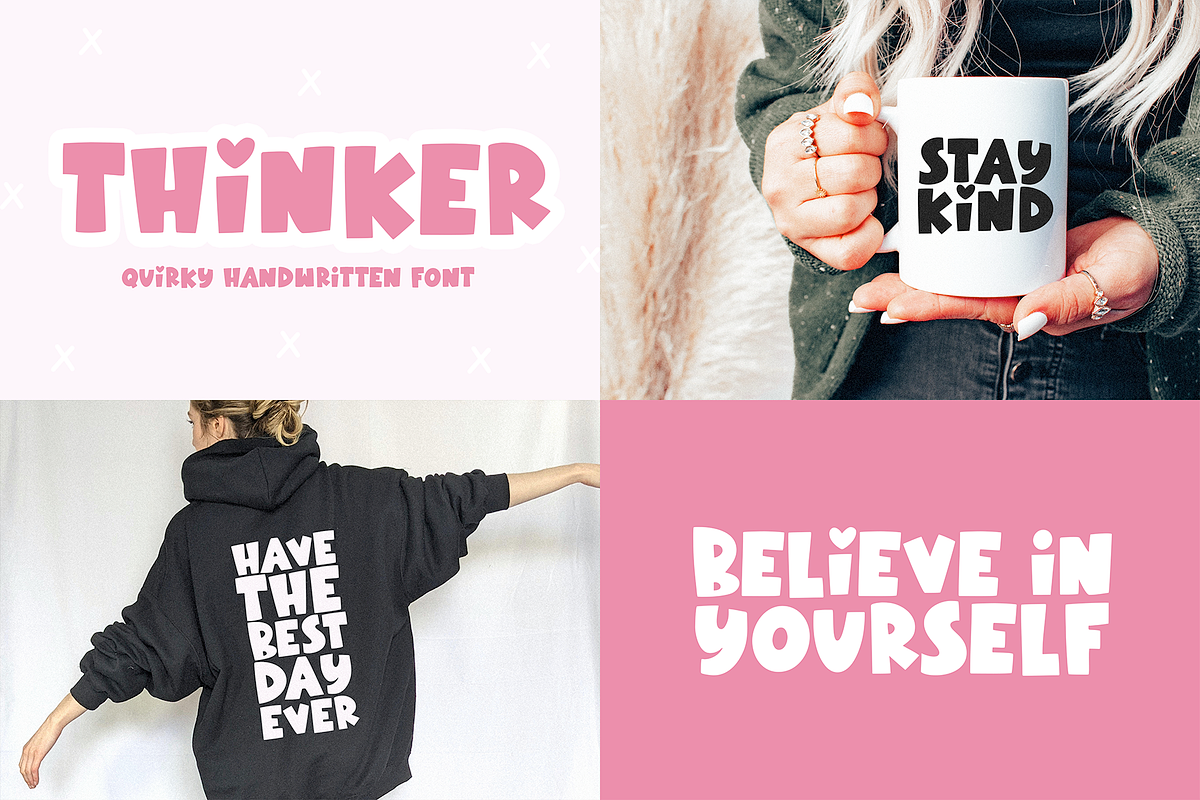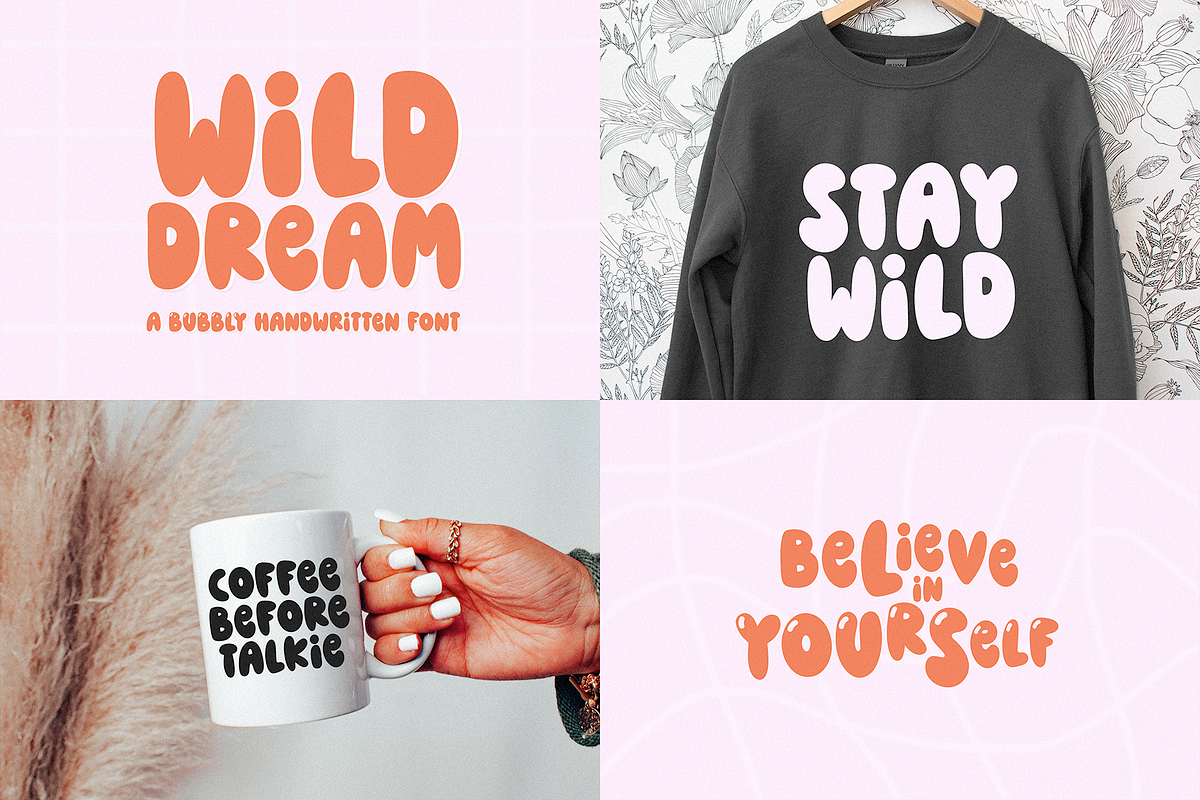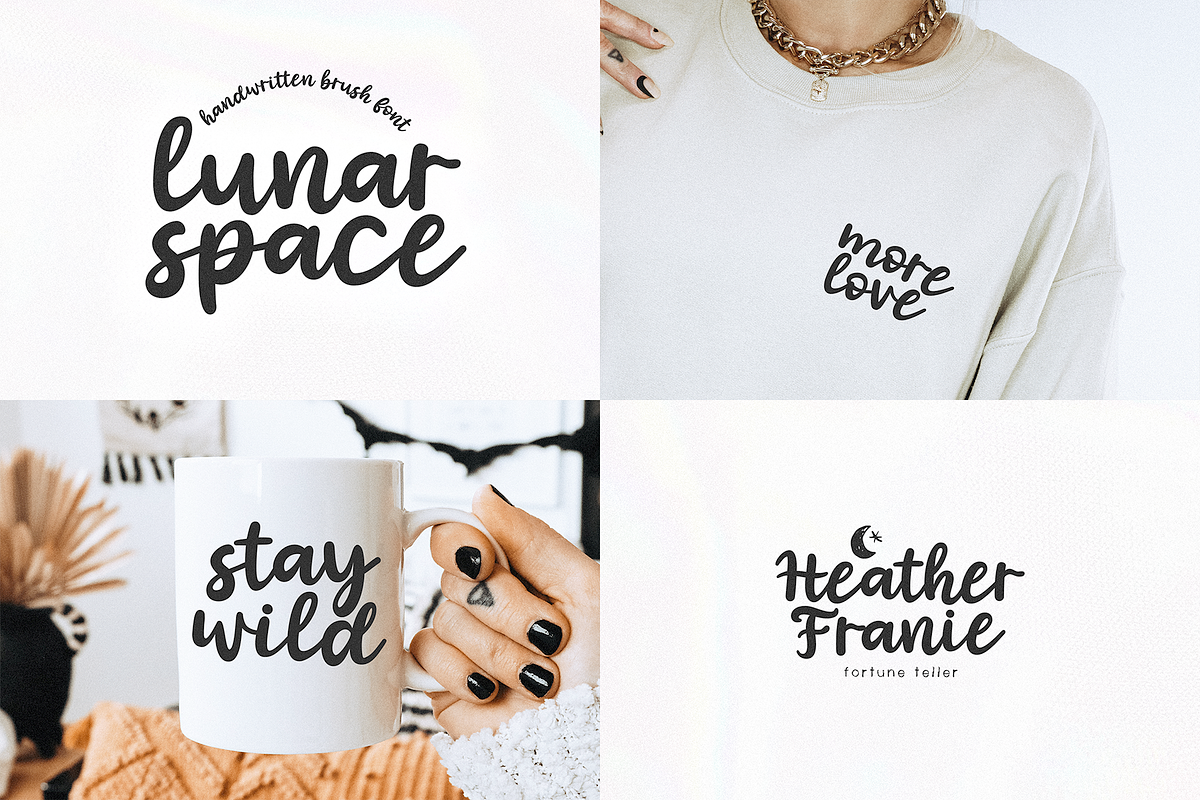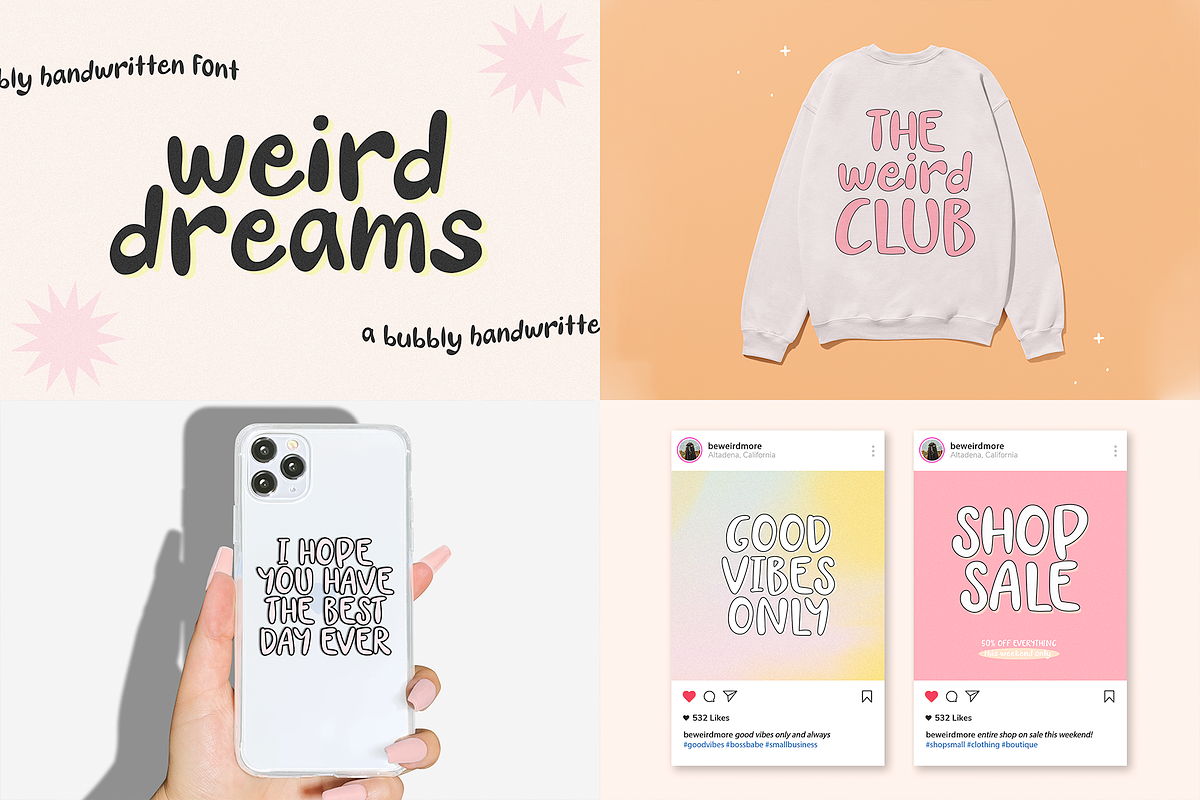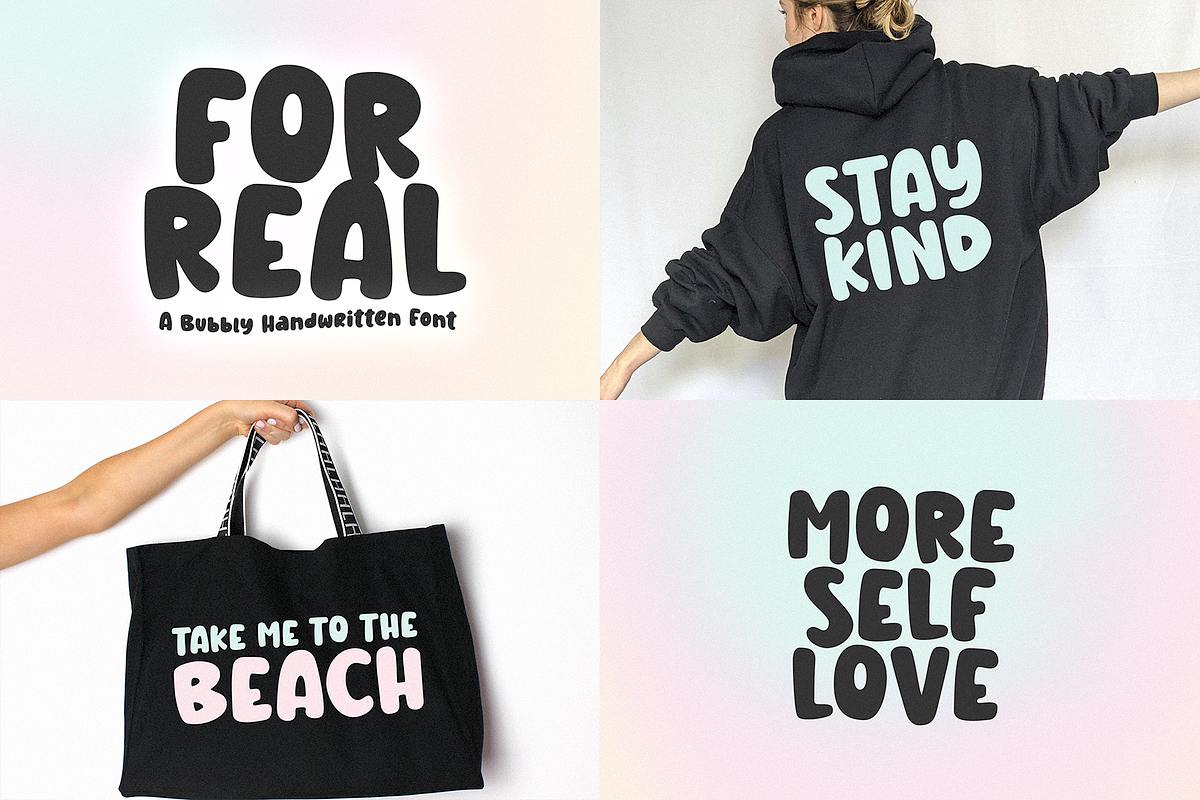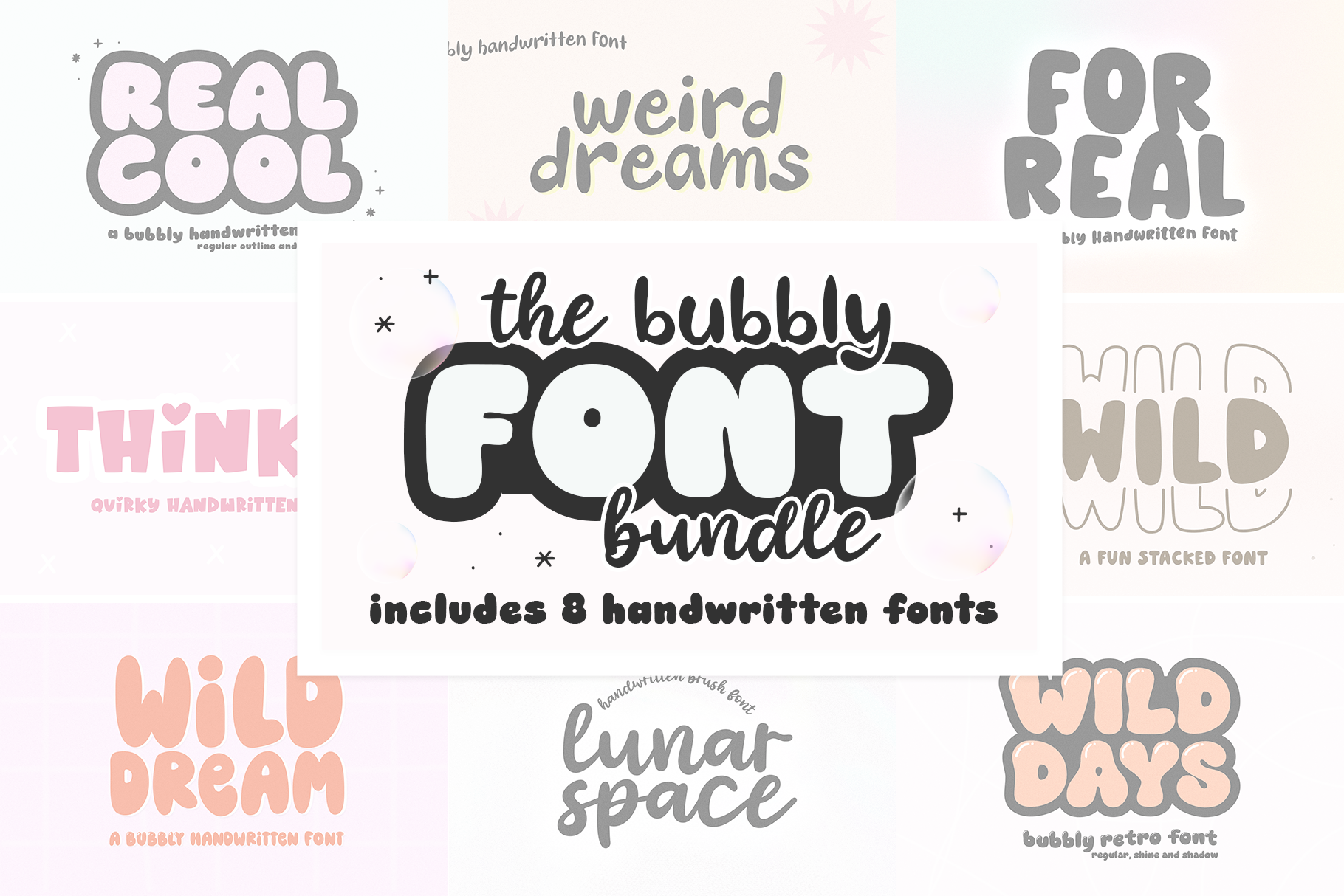
Bubbly Retro Font Bundle
THE BUBBLY FONT BUNDLE
Includes 8 Bubbly Retro Fonts
This bundle includes a handpicked selection of various styles.
Fonts Included -
Real Cool (regular, shadow, outline)
For Real
Wild Days (regular, shadow, outline)
Thinker
Weird Dreams
Lunar Space
Wild Dream
Wild Stacked